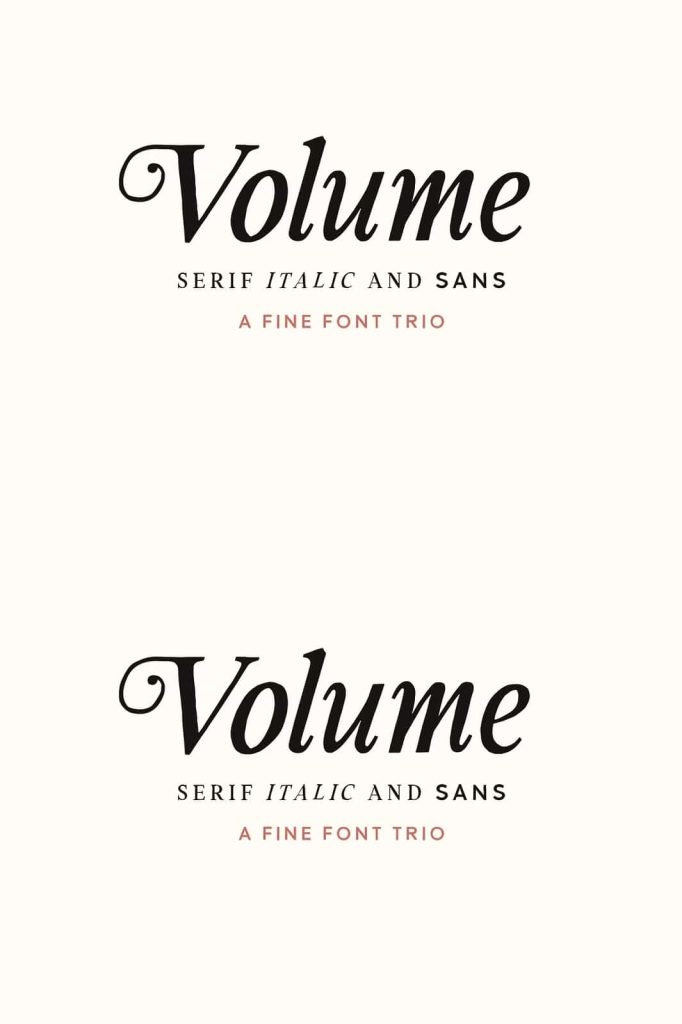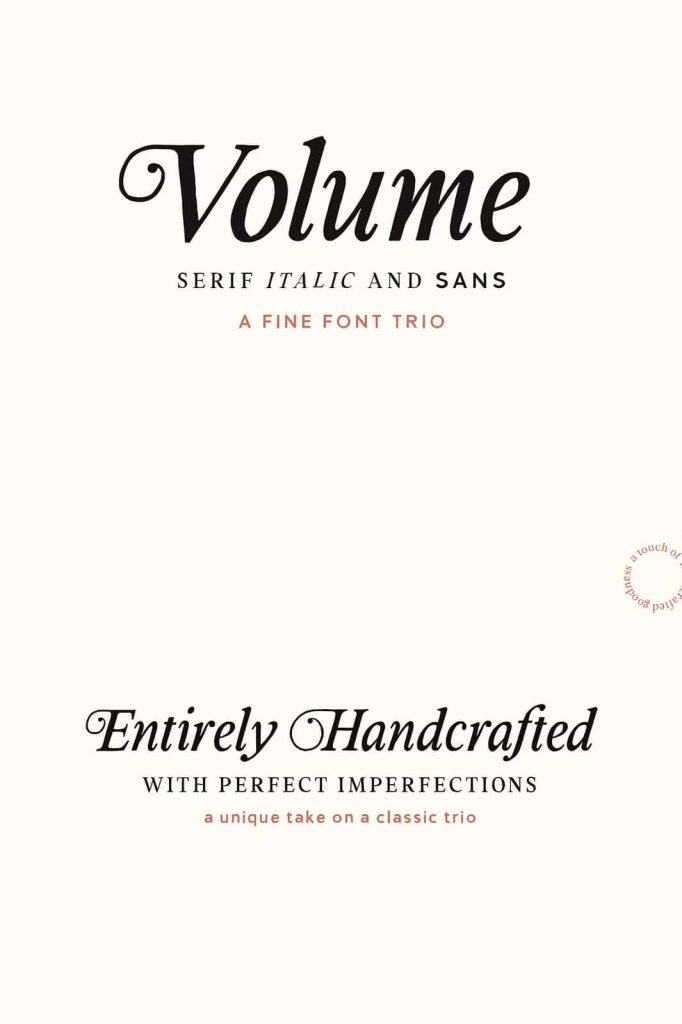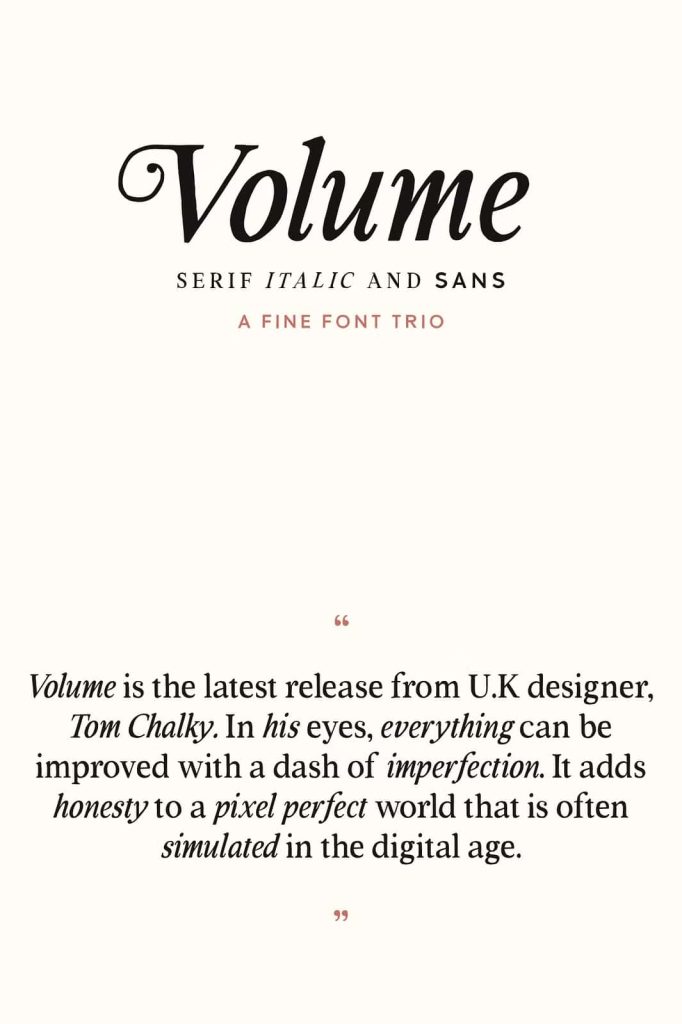
Volume Font Family: A Bold Trio Blending Structure and Handcrafted Character
Volume is a distinctive font family that redefines traditional typography by combining three essential styles into one cohesive system. It brings together a serif, an italic, and a sans serif, creating a versatile toolkit that supports a wide range of creative directions. Designers can rely on Volume to deliver both structure and personality, making it an excellent choice for projects that demand flexibility and originality.
A Unique Interpretation of a Classic Trio
Volume takes the familiar combination of serif, italic, and sans serif styles and transforms it into something fresh and expressive. Instead of following rigid typographic rules, this font family introduces a “professionally imperfect” approach. It embraces subtle irregularities and handcrafted nuances while maintaining a strong, formal foundation.
This balance allows designers to create work that feels authentic without sacrificing clarity or professionalism. Volume challenges the idea that polished design must always look perfect, offering a more human and engaging alternative.
Professionally Imperfect, Creatively Powerful
The defining characteristic of Volume lies in its intentional imperfections. Each style carries small variations that add depth and individuality to the overall design. These details give the font a handcrafted appearance, making it stand out in a world of overly uniform typography.
At the same time, Volume maintains a structured and formal approach. The letterforms remain highly functional and readable, ensuring that your designs communicate effectively. This combination of precision and imperfection creates a compelling visual identity that feels both modern and timeless.
Three Styles, Endless Possibilities
Volume provides designers with three complementary styles that work seamlessly together. This versatility allows you to build cohesive designs while exploring different typographic expressions.
- Serif: Adds elegance and structure, perfect for headlines and editorial layouts
- Italic: Introduces movement and emphasis, ideal for highlights and accents
- Sans Serif: Delivers clarity and simplicity, suitable for modern and clean compositions
By combining these styles, designers can create dynamic layouts with clear hierarchy and visual interest. Volume eliminates the need to search for multiple font families, offering everything you need within a single system.
Versatility Across Design Applications
Volume adapts easily to a wide variety of design projects. Its balanced aesthetic allows it to perform well in both traditional and contemporary contexts. Whether you are working on branding, editorial design, or digital content, this font family provides the flexibility needed to achieve professional results.
You can confidently use Volume for:
- Brand identities that require both character and consistency
- Editorial layouts that benefit from varied typographic styles
- Logos that combine elegance with a handcrafted touch
- Posters and marketing materials that demand visual impact
- Digital designs that balance readability with personality
Its adaptability ensures that it remains a valuable asset for designers across different industries and creative disciplines.
Designed for Modern Creative Workflows
Volume supports modern design workflows by offering a complete and cohesive typographic solution. Designers can move quickly between styles without losing consistency, making it easier to experiment and refine ideas. The compatibility between serif, italic, and sans styles allows for smooth transitions and harmonious compositions.
This efficiency helps streamline the design process, enabling you to focus on creativity rather than technical limitations. Volume encourages exploration while maintaining a clear and structured visual language.
Balance Between Formal and Expressive Design
Volume achieves a rare balance between formal typography and expressive design. Its structured foundation ensures readability and professionalism, while its handcrafted imperfections add warmth and individuality. This combination makes it suitable for projects that require both clarity and emotional connection.
Designers can use Volume to create work that feels polished yet approachable, making it ideal for brands and projects that want to stand out without losing credibility.
Elevate Your Typography with Volume
Volume empowers designers to create compelling and versatile typography with ease. Its unique blend of serif, italic, and sans styles provides a complete toolkit for building engaging visual experiences. By incorporating this font family into your projects, you can achieve a distinctive look that combines structure, creativity, and authenticity.
Choose Volume font family to bring balance, flexibility, and character into your designs. It transforms traditional typography into a modern, expressive system that supports a wide range of creative possibilities.